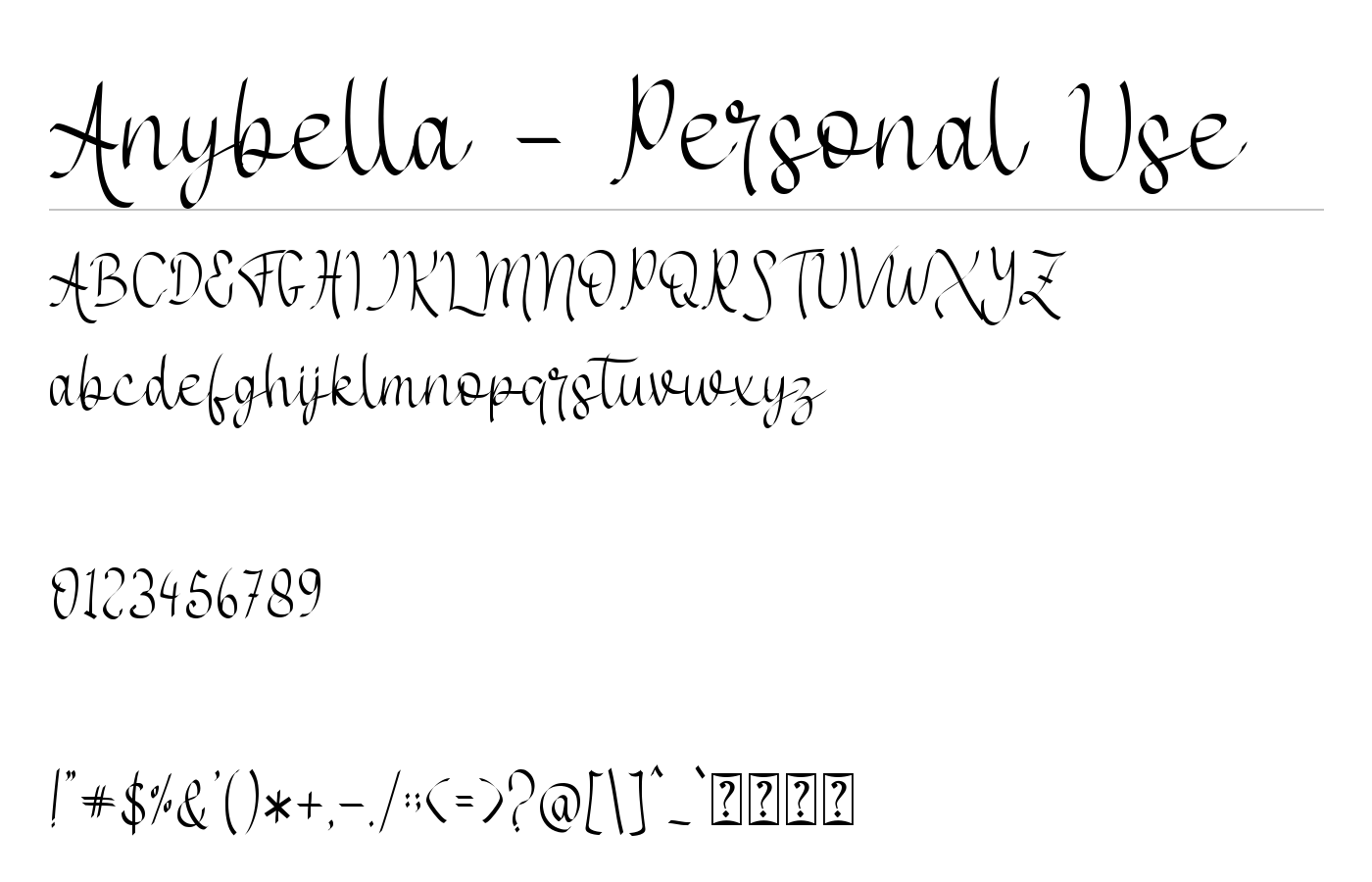
Anybella is a delicate and elegant script font with a handwritten feel, featuring slender, flowing strokes and charmingly irregular letterforms that add a personal touch. Its light weight and graceful curves make it perfect for invitations, branding, and feminine designs where a soft, sophisticated atmosphere is desired. This font shines in projects seeking a romantic or artisanal mood, offering a stylish yet approachable look.
Anybella - Personal Use Font
About Anybella - Personal Use Font
| Font family | Anybella - Personal Use Font |
| Designer | Ahmad Afandi |